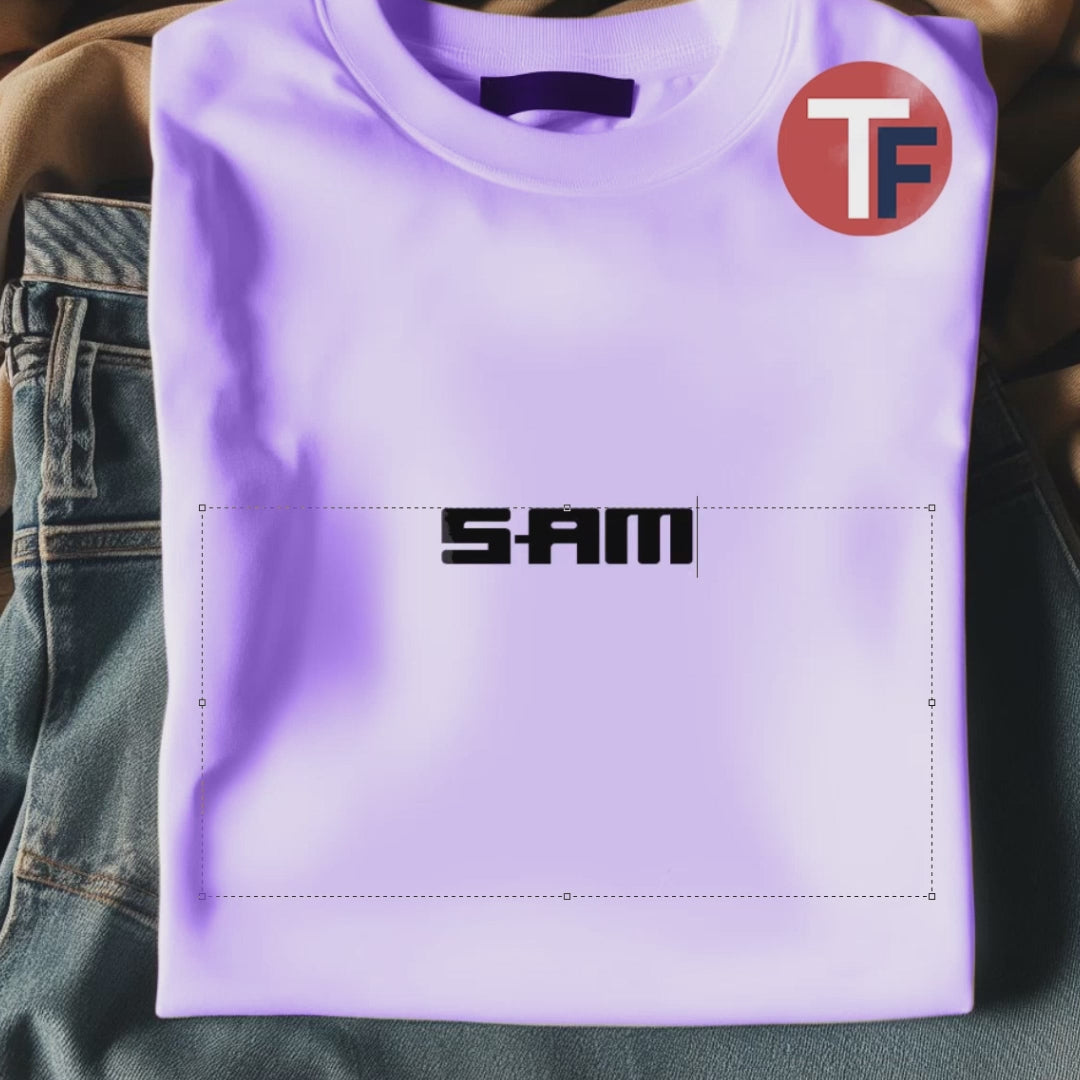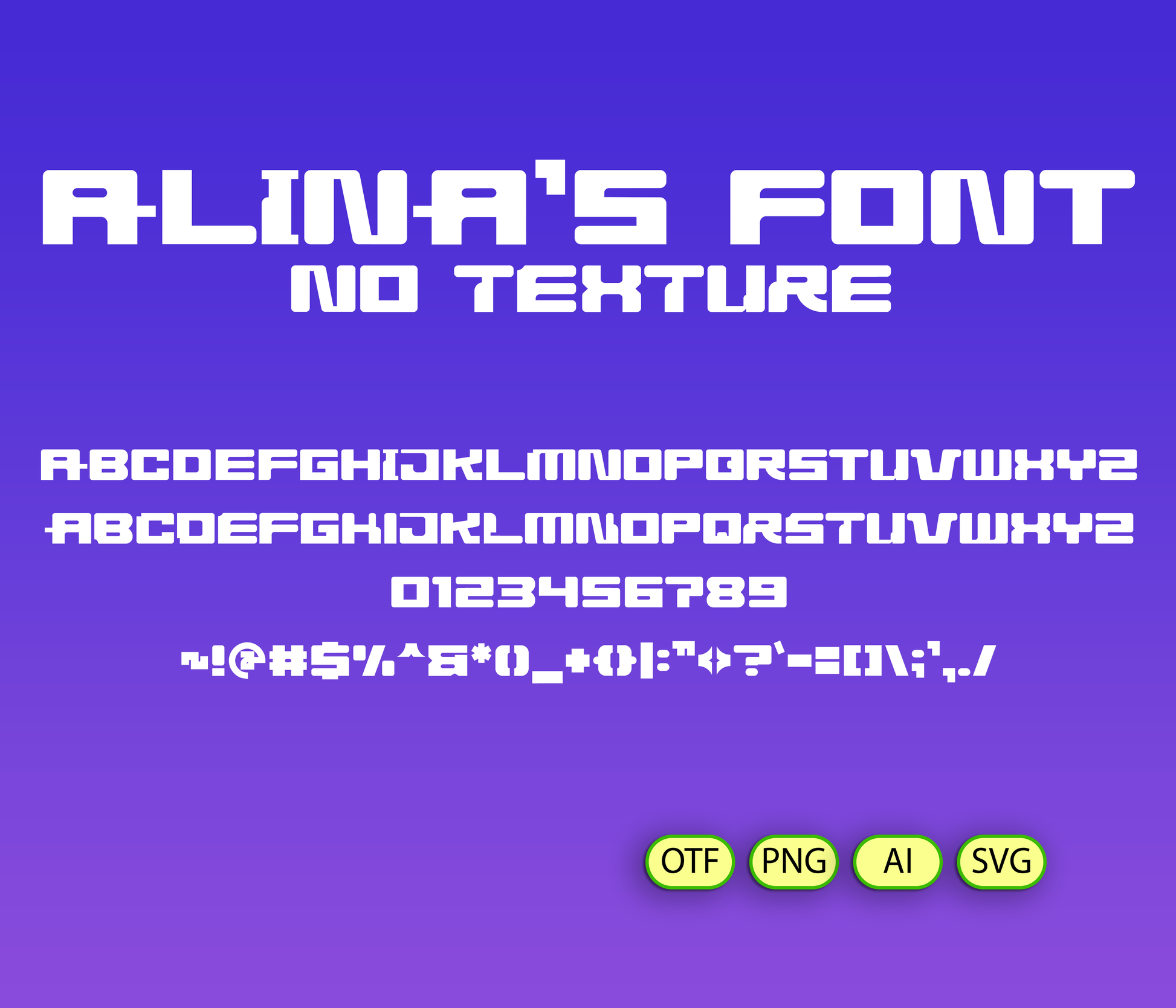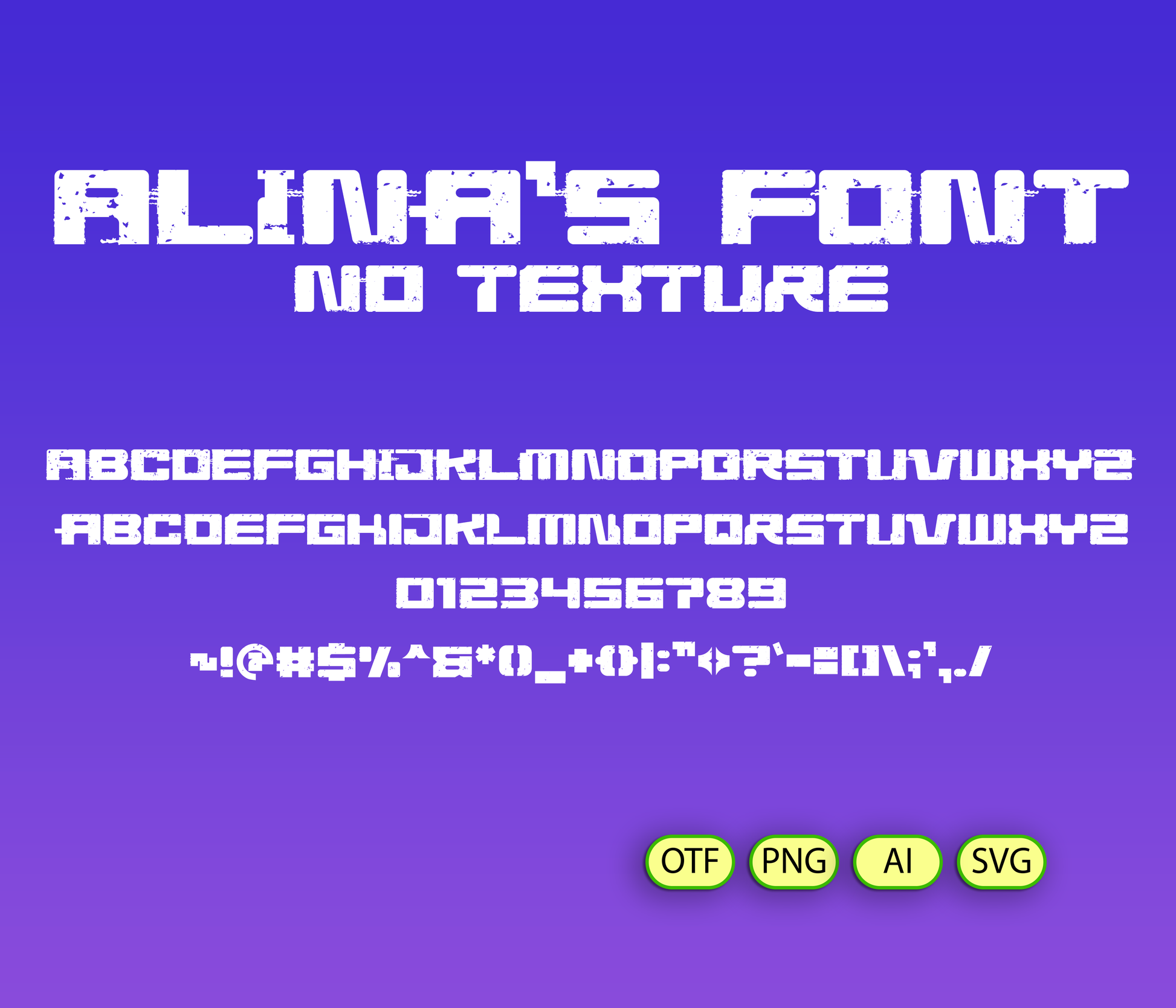
Warrior Quest Font Bundle
Embark on Epic Adventures with the Warrior Quest Font
Immerse yourself in the world of epic tales with our specially designed Warrior Quest font, capturing the essence of legendary animated series. Perfect for fans, event organizers, and designers who want to evoke the bold and dynamic spirit of heroic adventures, this font ensures your projects resonate with the striking and adventurous essence of timeless battles. Whether creating event invitations, designing themed merchandise, or crafting digital content, our Warrior Quest font brings the eternal battle between good and evil to your designs.
Our Warrior Quest-inspired font features sharp, angular lines and bold, impactful characters that reflect the dramatic and stylized visuals of epic series. This versatile font is ideal for a variety of applications:
- Event Invitations: Perfect for creating striking invites for screenings, fan gatherings, or themed parties.
- Merchandise Design: Ideal for designing t-shirts, posters, and accessories that capture the essence of the series.
- Digital Media: Enhance websites, blogs, and social media content with powerful headers and graphics.
- Educational Materials: Use in presentations, worksheets, and educational content focused on storytelling, animation, or cultural themes.
- Personal Projects: Add a dynamic touch to scrapbooking, DIY crafts, or home decor inspired by heroic adventures.
Our Warrior Quest font not only pays homage to iconic series but also empowers you to infuse your designs with its bold and adventurous spirit. Whether crafting promotional materials, designing unique merchandise, or adding a touch of dynamic flair to personal projects, this font allows you to communicate with the intensity and heroism that define epic adventures. Ready to take your creative projects on an epic journey? This font is your key to unlocking a world of timeless and impactful design.